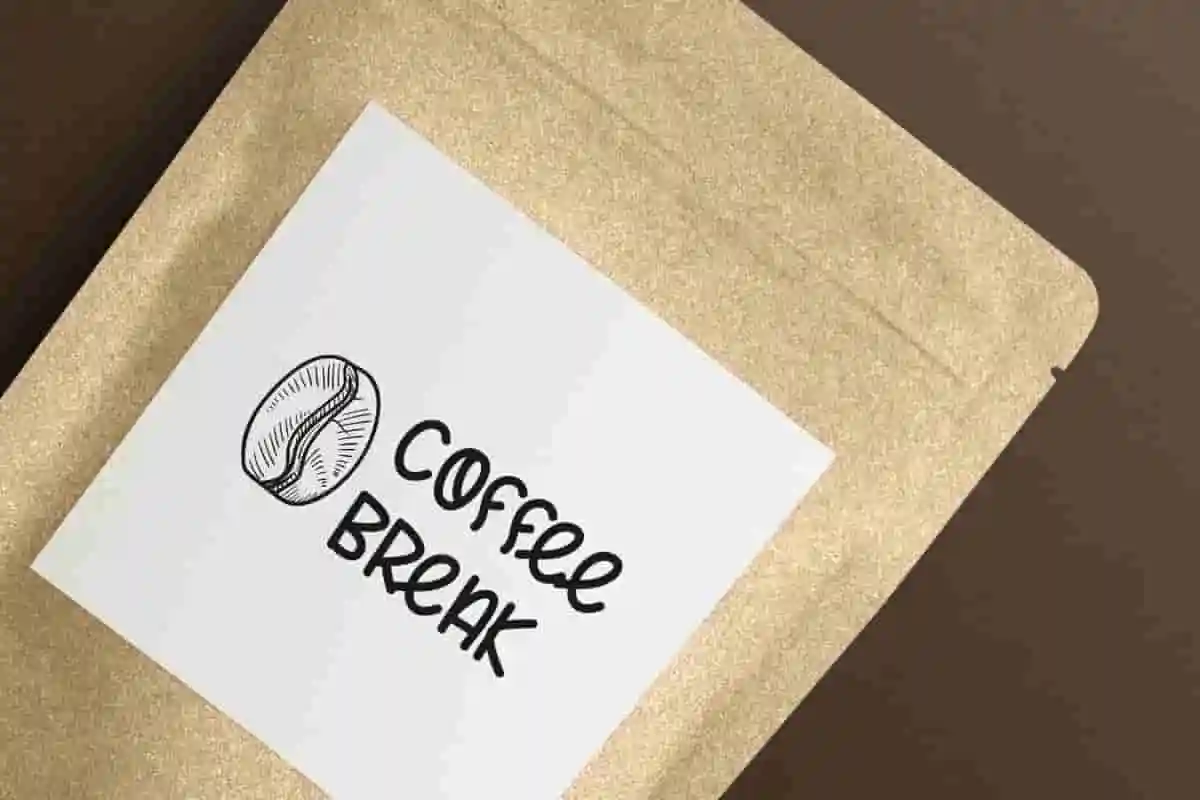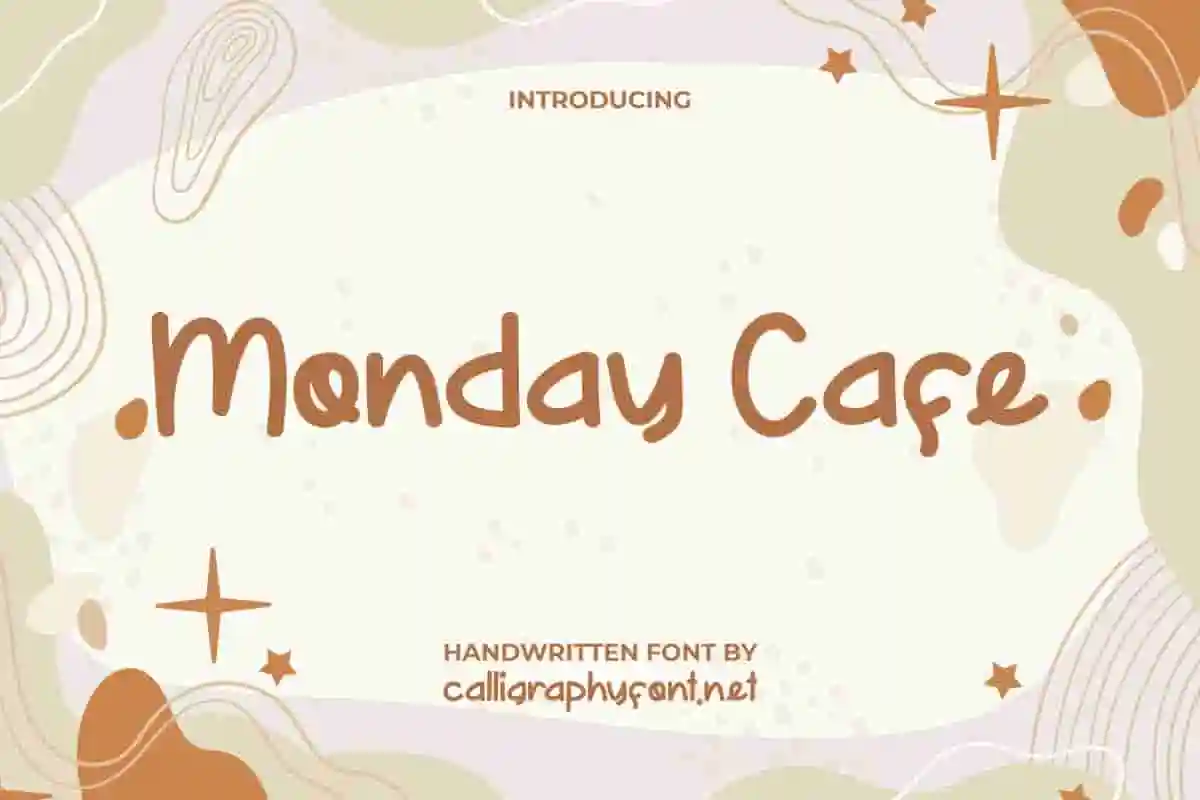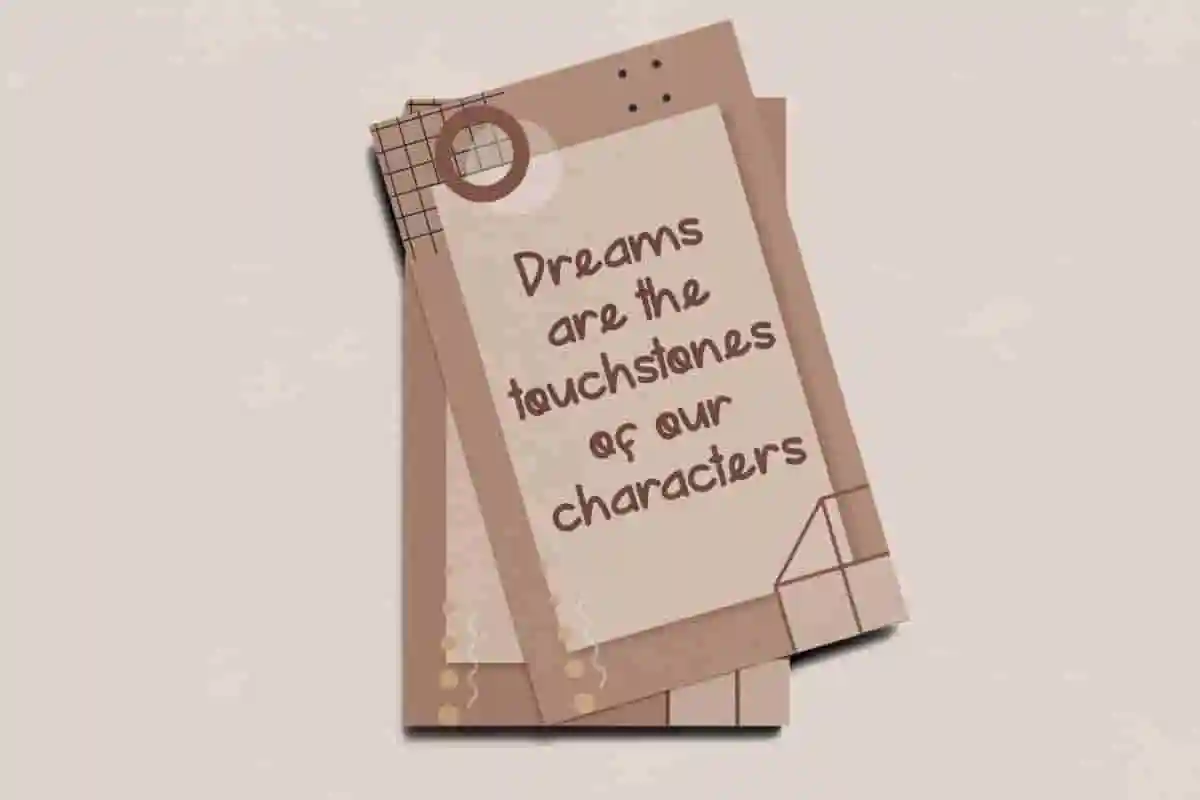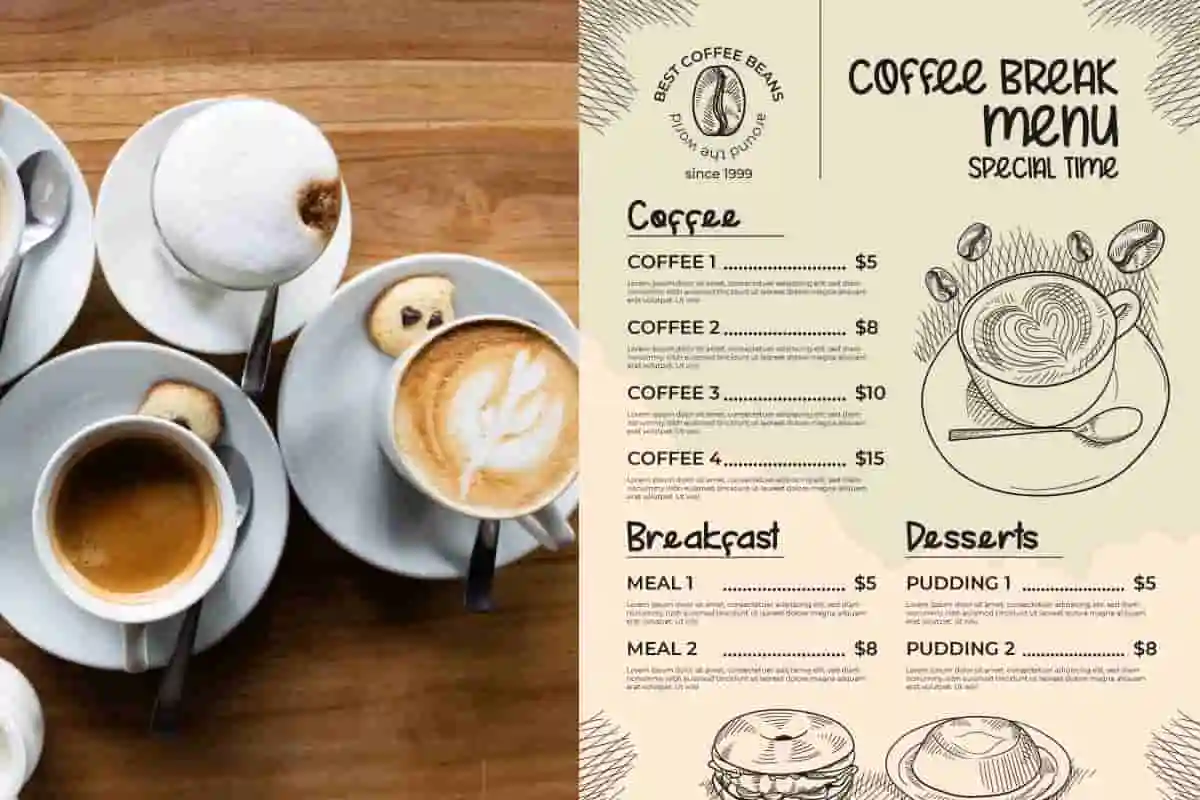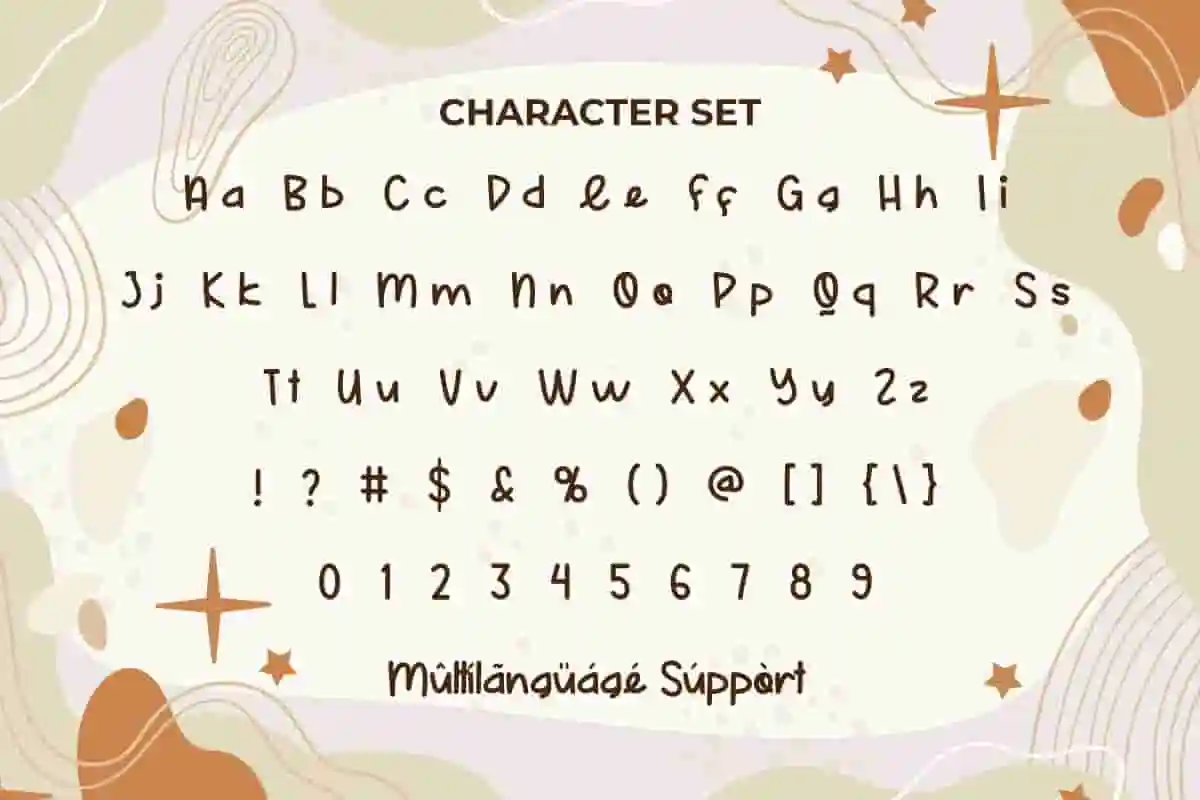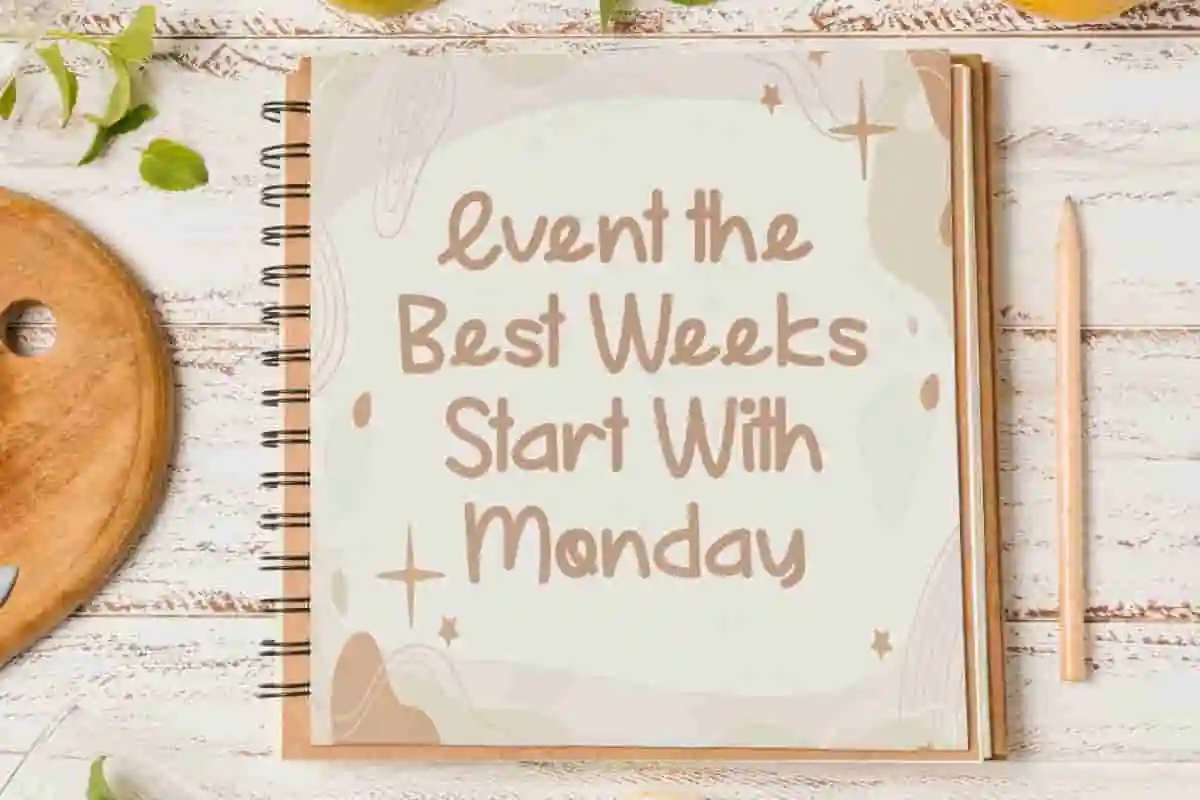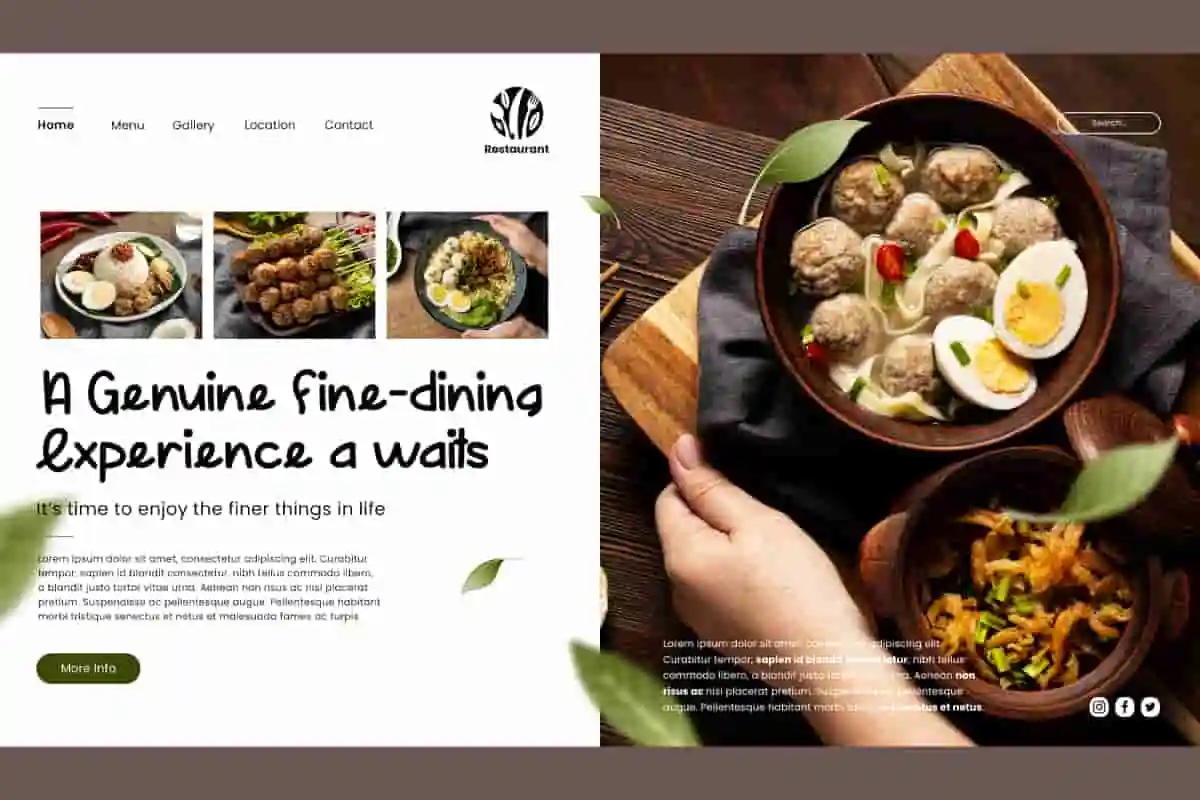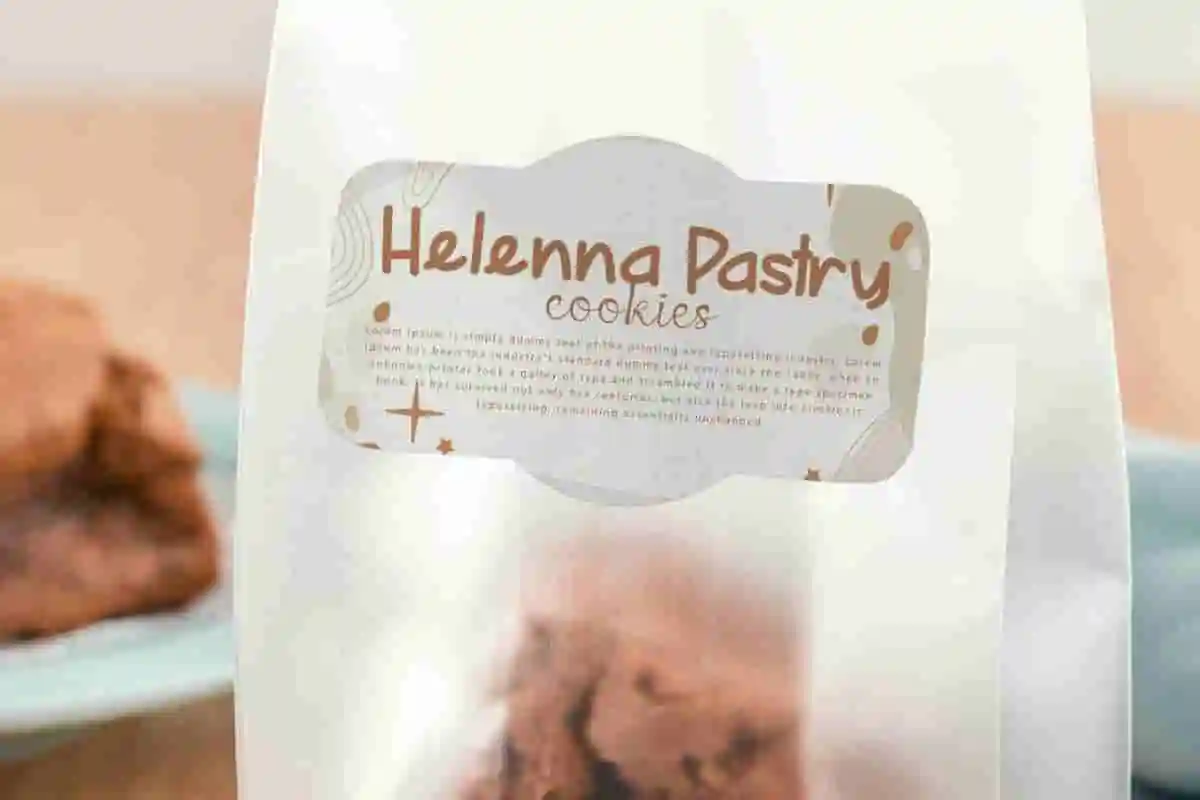
Monday Cafe Display Font
Monday Cafe Font is a fun cartoon handwritten font with relaxed and handmade touch inspired by coffee beans making the letters unique.
Monday Cafe Font is a fun cartoon handwritten font with relaxed and handmade touch. This is a wonderful original handcrafted font inspired by coffee beans making the letters unique in their own way. The font creates its own hand-drawn appeal but is still very easy to read due to its simple shape. It will be efficient as brochure, header, headline, label, logos, menu sheet, mockup template, poster, product packaging, quotes, stationery, sticker, title text or work in the form of small paragraphs, watermarks, website, various advertising purposes, of course it will be of artistic value for your design.
Bring a touch of cozy charm and modern style to your designs with Monday Cafe Display Font—a typeface crafted to capture the friendly and inviting vibe of your favorite café. Whether you’re designing menus, logos, posters, or social media graphics, this font will instantly add personality and warmth to your projects.
Monday Cafe Display Font is a stylish display typeface that blends casual elegance with a handcrafted feel. Its smooth lines and creative shapes make it stand out without being overwhelming, perfect for projects that need both readability and uniqueness. From coffee shop branding to event invitations, this font adds a professional yet approachable look that keeps your audience engaged.
One of the best features of Monday Cafe is its versatility. It works beautifully for both digital and print designs, ensuring that your brand identity remains consistent across platforms. Use it for bold headlines, creative packaging, or even inspirational quotes—its playful yet modern style makes every word more eye-catching.
Monday Cafe Display Font is a fun handwritten font with a slightly rounded style that’s here to make some cool custom typography creations. It is designed to show how versatile and creative it will be in whatever background your next business takes, for example bakery and pastry, cafeteria, coffee shop, event organizer,  fashion, film, food and beverage brands, graphic design, handicrafts, homeware, hotel, interior design, movie, photography, printing, publishing, restaurant, toy store, writer, and more.
Monday Cafe Display Font comes with a complete set of Uppercase and Lowercase Basic Characters, Number, a large range of Punctuation and Symbol. It is supported with multilingual characters and ready to use both on Windows machine or Mac with simple installations. It’s tested to work well in the Adobe Apps (Illustrator, Adobe InDesign, Adobe Photoshop) CorelDraw, and others. PUA Encode Characters means you can access all the characters easily – Fully accessible without additional design software.